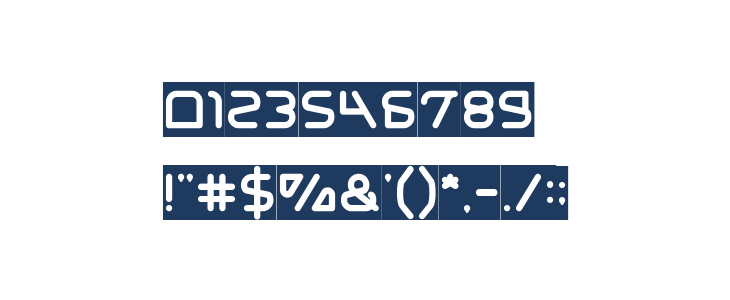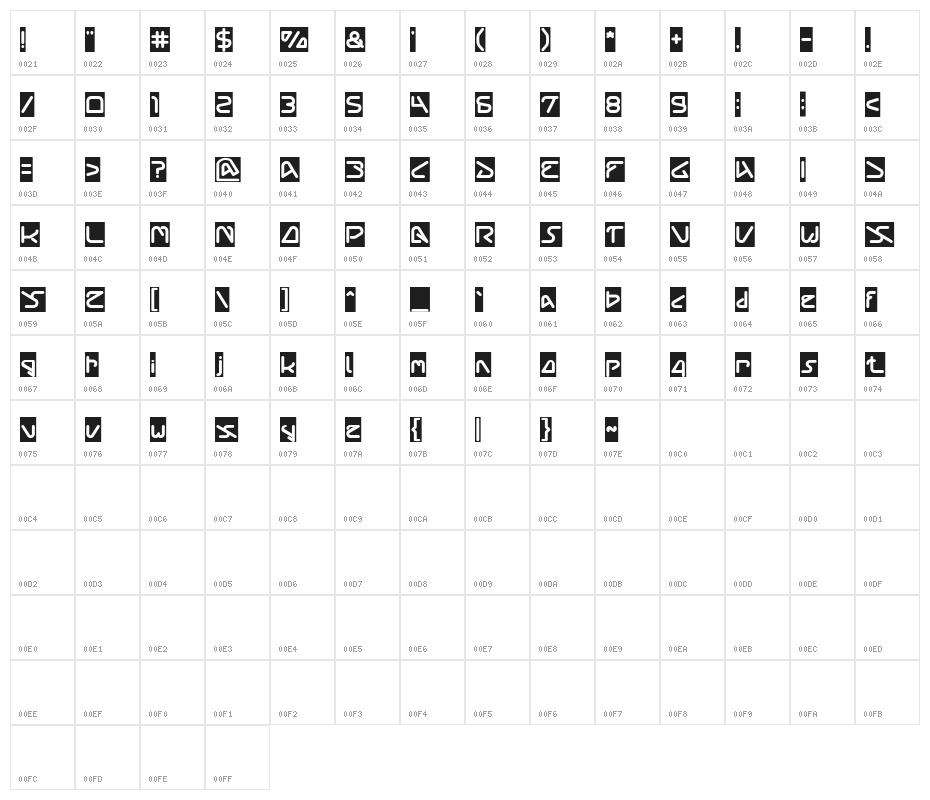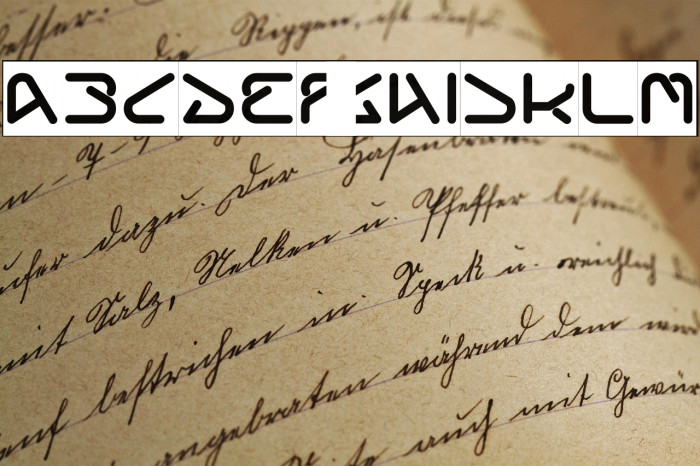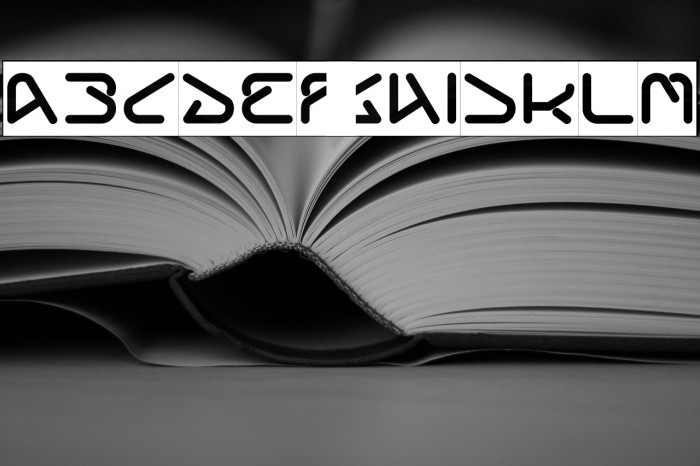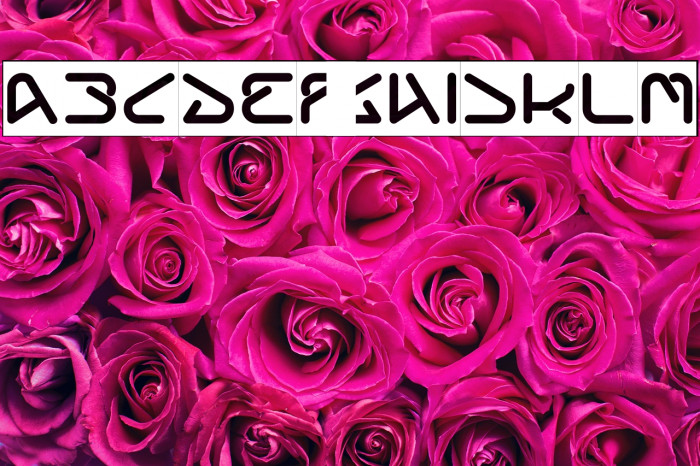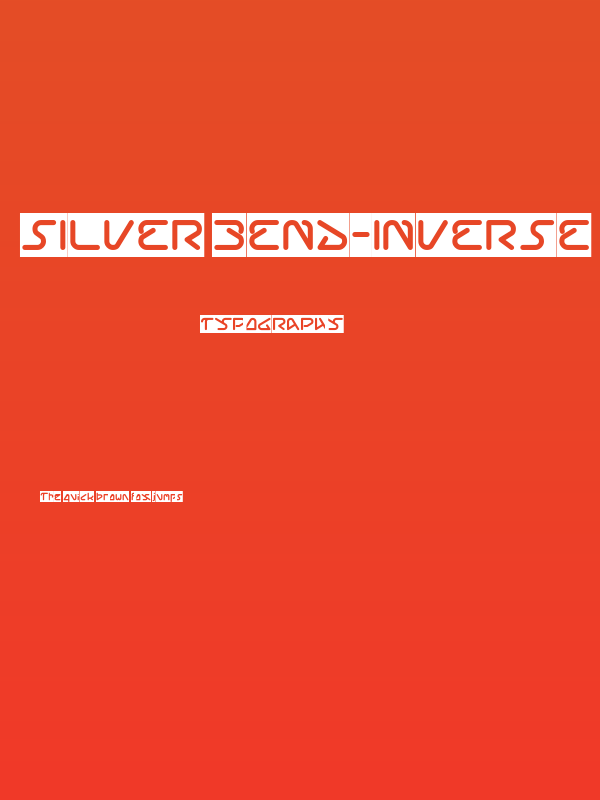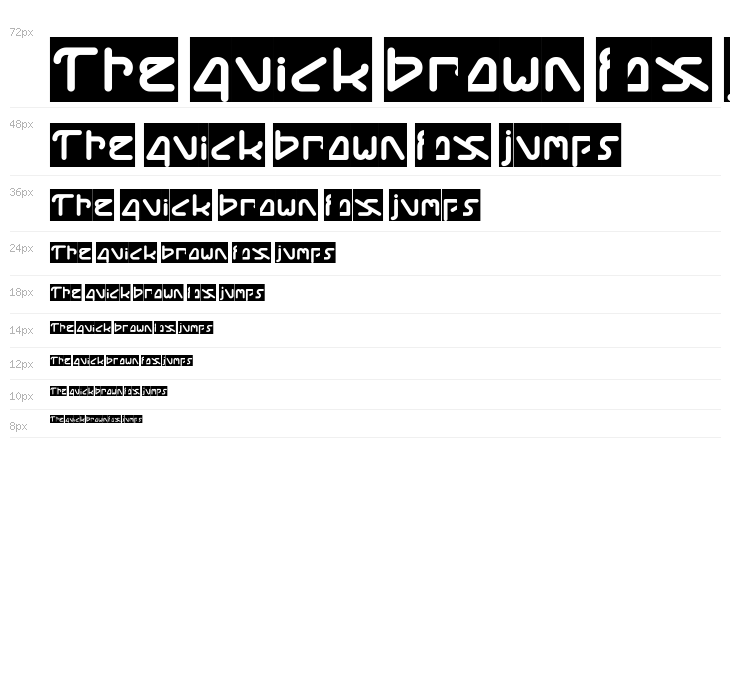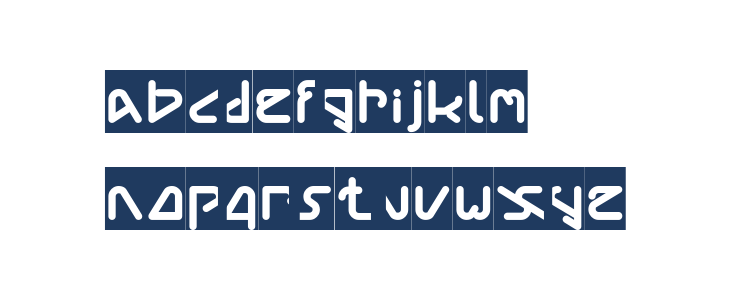
Silver Bend-Inverse Font
Silver Bend-Inverse Description
This font features a futuristic and geometric design with a unique blend of sharp angles and smooth curves. The characters are bold and have a distinct, almost stencil-like appearance, making them stand out prominently. The uppercase and lowercase letters share a consistent style, with a modern twist that adds a sense of innovation and creativity. The numbers and special characters maintain this cohesive design, ensuring uniformity across all elements. The font's design is both eye-catching and functional, suitable for projects that require a modern and edgy aesthetic.